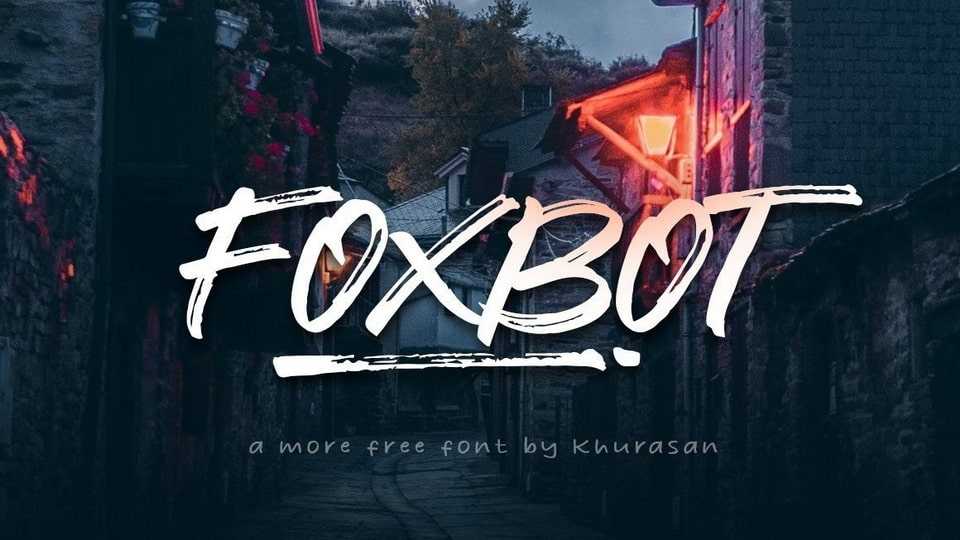
Download Foxbot font, a dynamic and rough brushed handwritten typeface. Foxbot is perfect for posters, logos, magazines, book covers, banners and other cool designs.